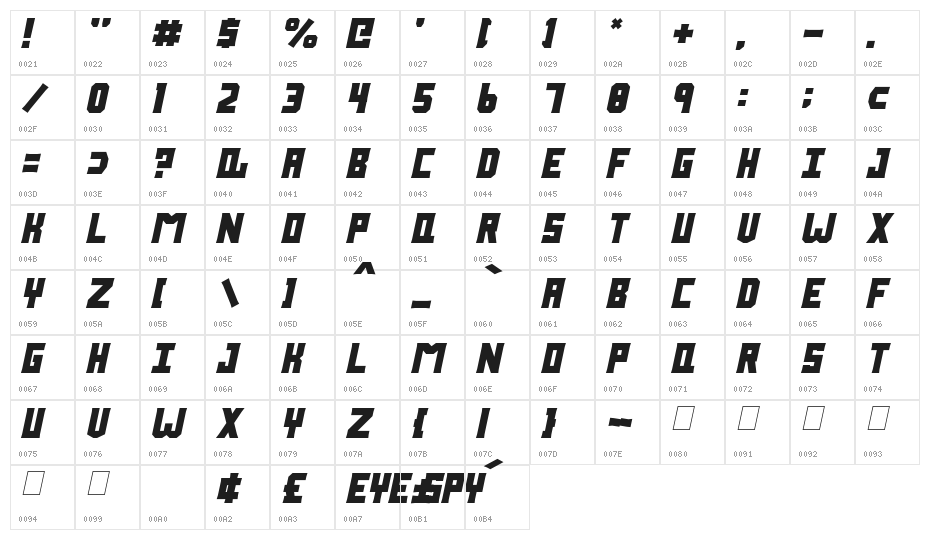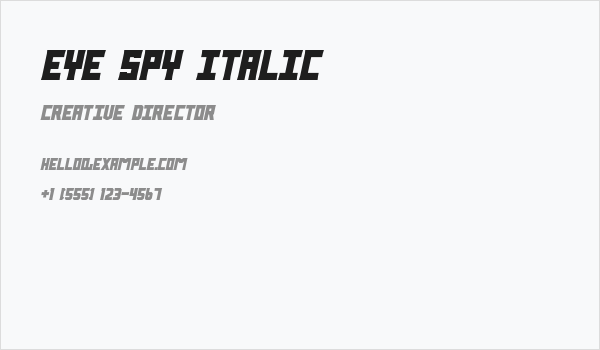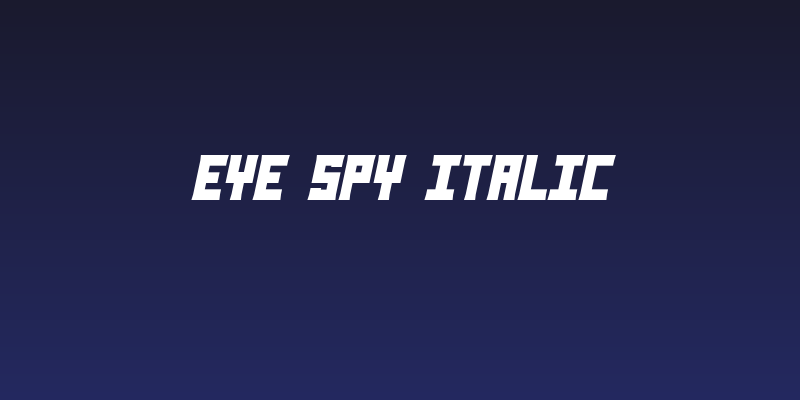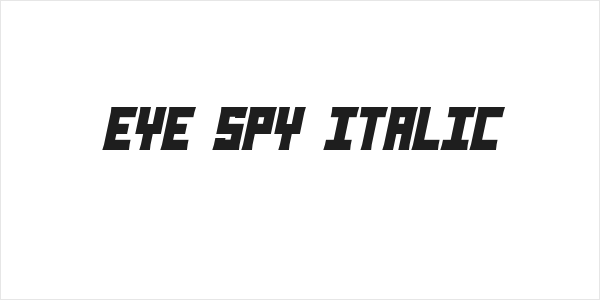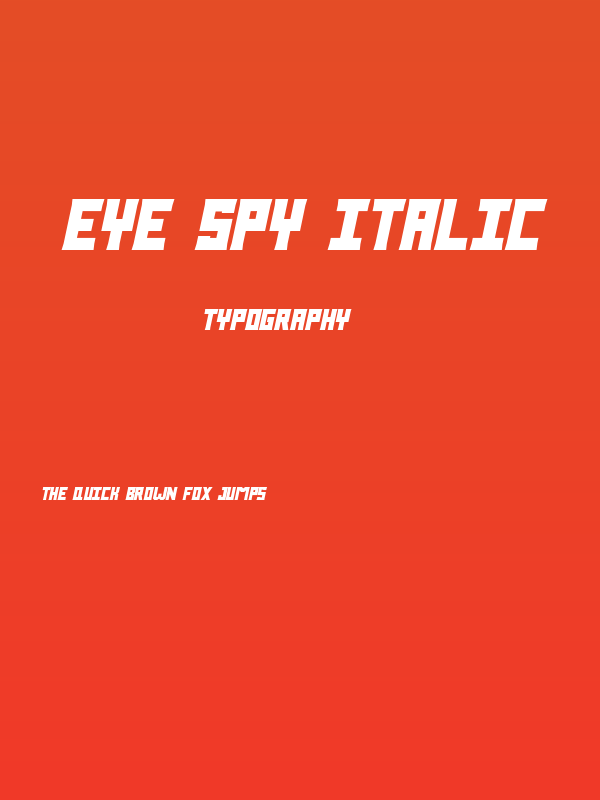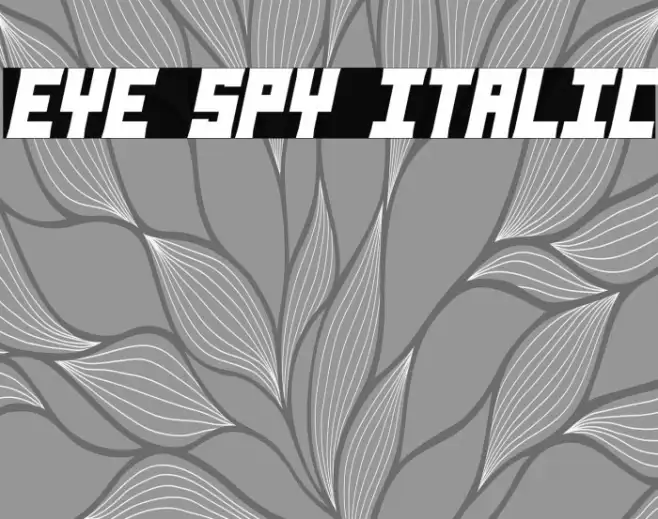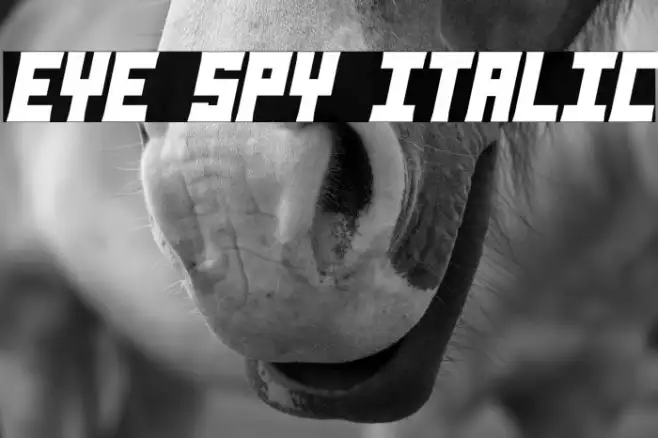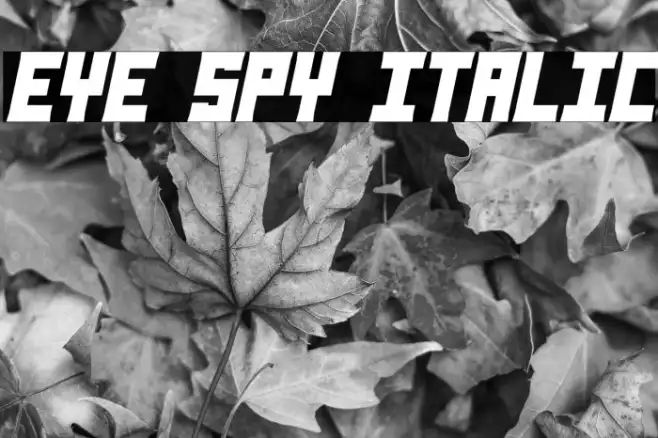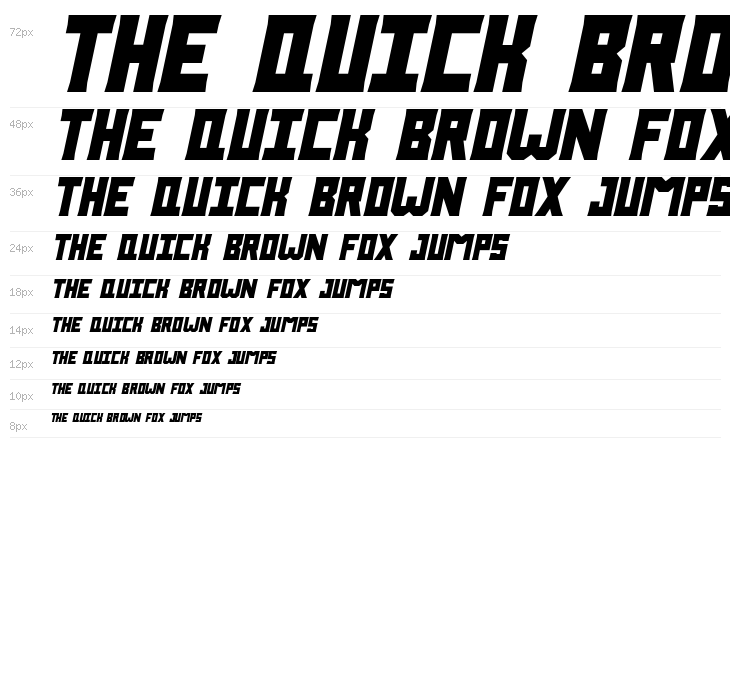
Eye Spy Italic Font
Eye Spy Italic Description
This font features a bold, angular design with a distinct italic slant, giving it a dynamic and energetic appearance. The characters are sharply cut with a geometric style, emphasizing a modern and edgy look. The uppercase and lowercase letters maintain a consistent style, with strong diagonal lines and a slightly condensed form. The numbers and special characters follow the same aesthetic, ensuring uniformity across all elements. This font's boldness and unique style make it stand out, suitable for projects that require a strong visual impact.